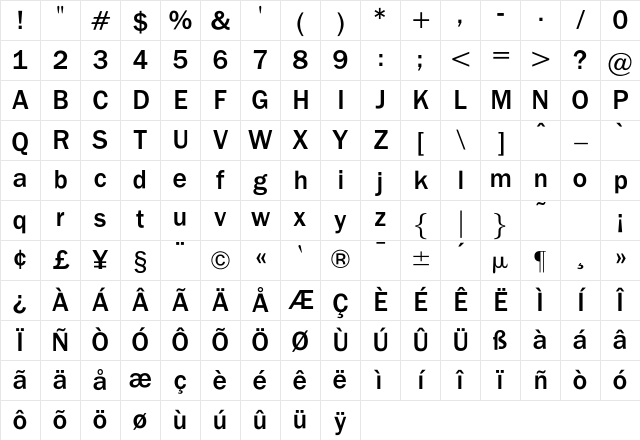
BenjaminGothicMedium Regular
Design Context for BenjaminGothicMedium
BenjaminGothicMedium takes a clean, functional approach - its unadorned letterforms prioritise legibility and work reliably across screen and print environments.
Font Pairing: Works well alongside a characterful serif or display font that can carry the expressive load while BenjaminGothicMedium handles the functional copy.
Pro Tip: Use BenjaminGothicMedium for UI labels, navigation, and short-form body copy where clean legibility is the priority.